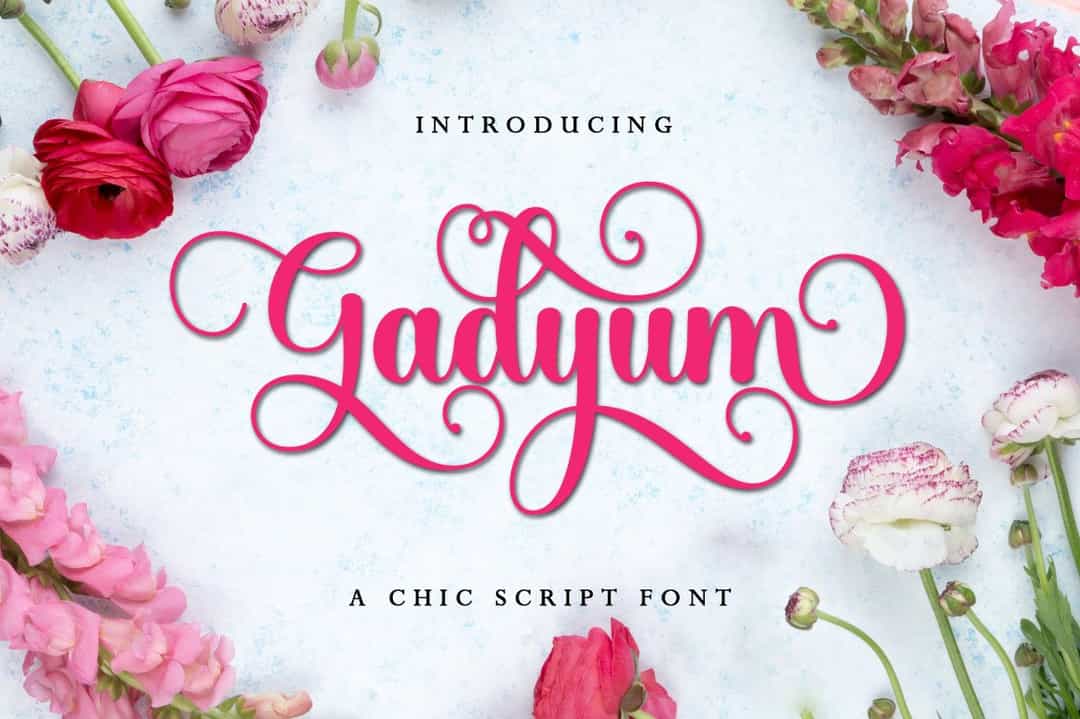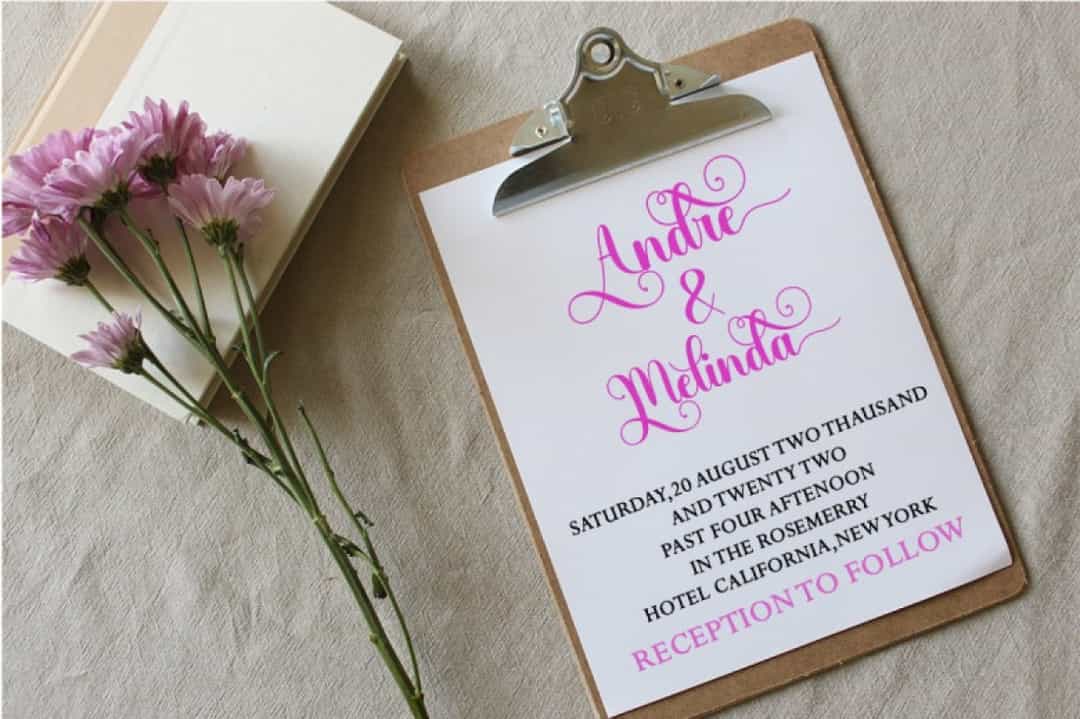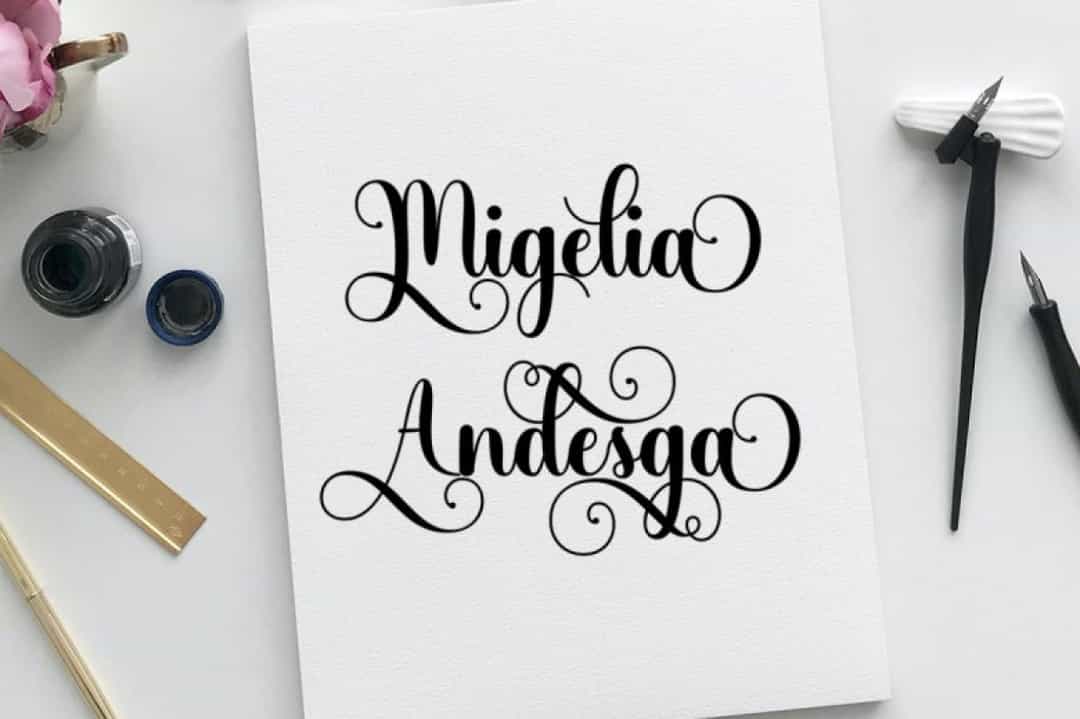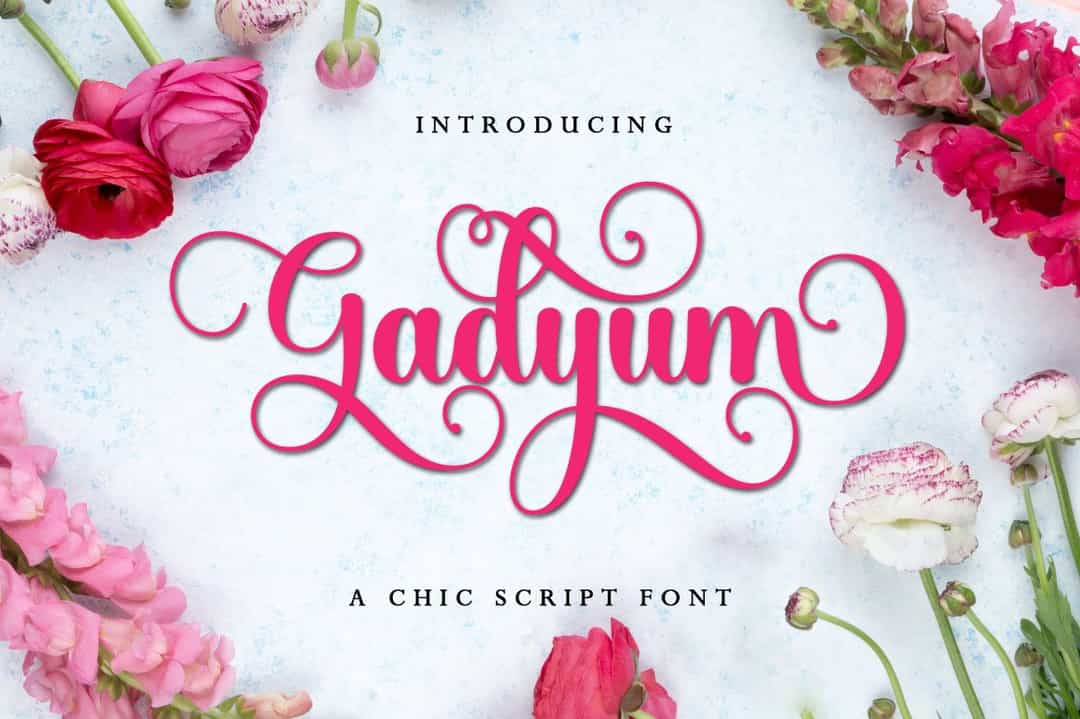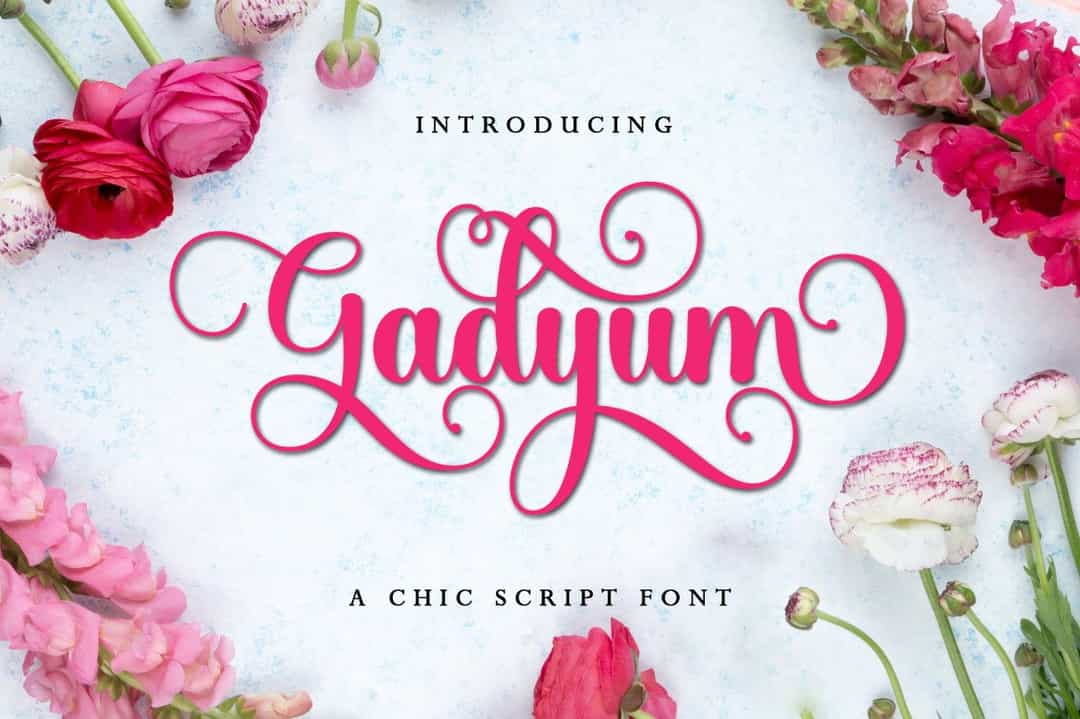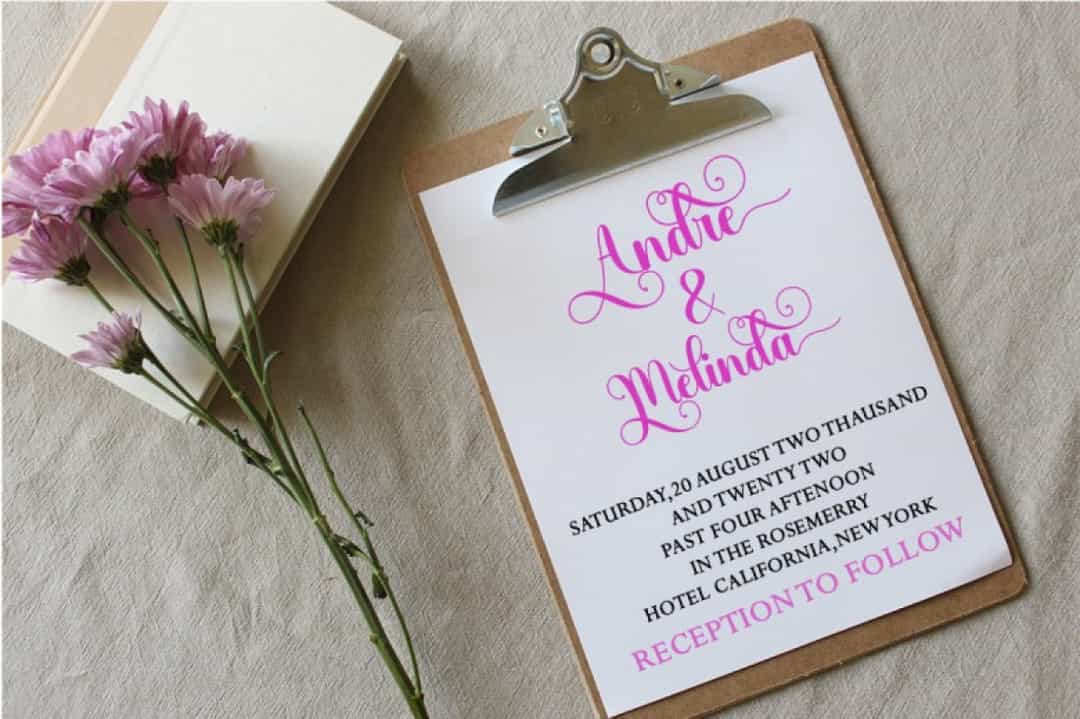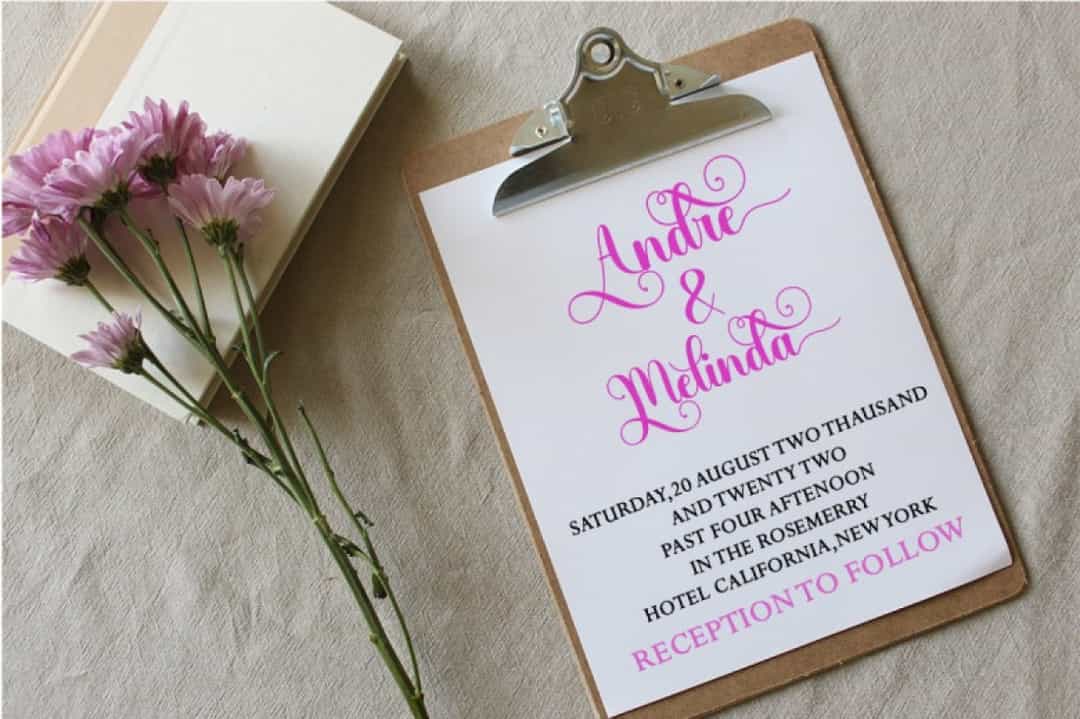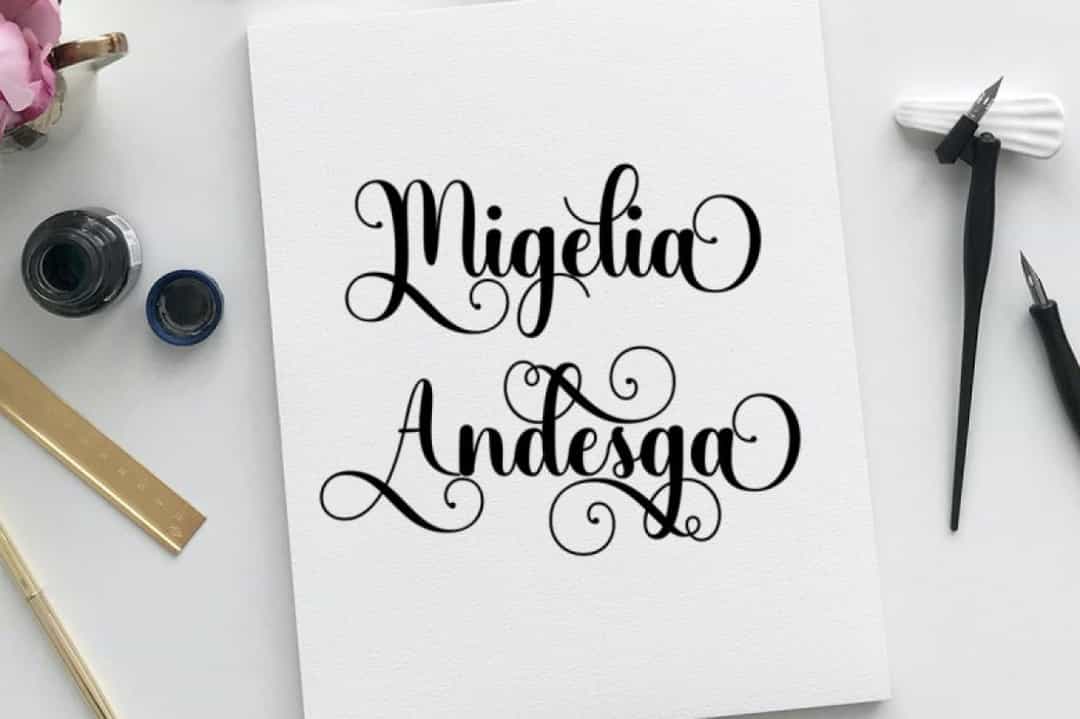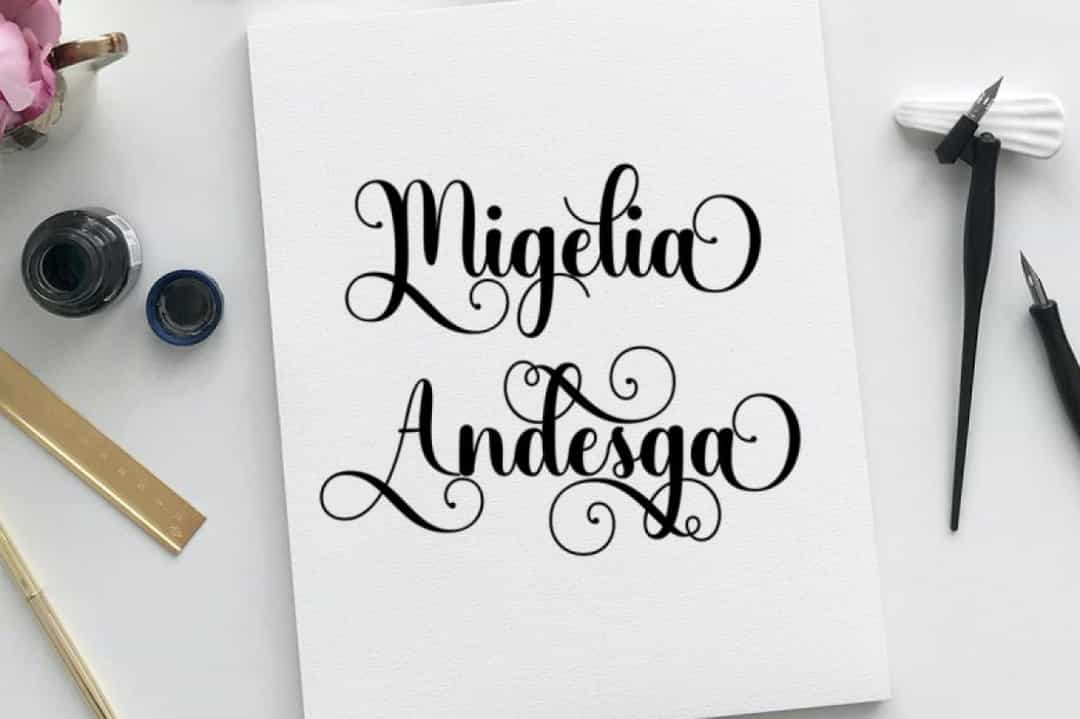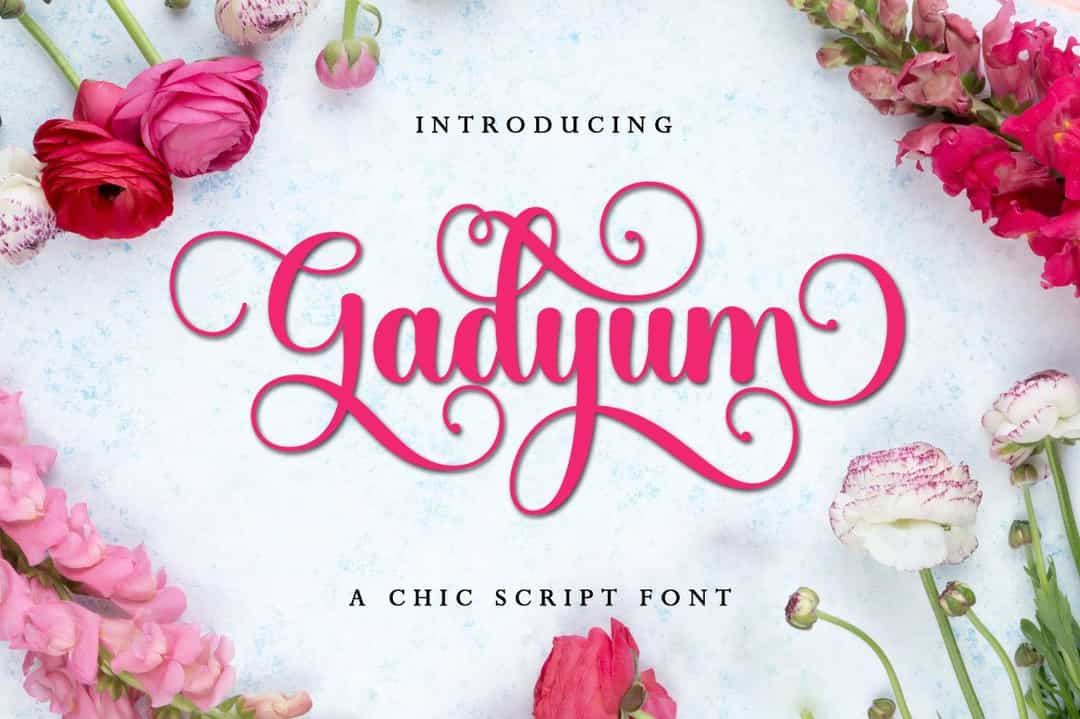
Gadyum, It is a calligraphy font developed as fully as possible to meet every design need, and we believe it will become widely utilized and adopted. For example, its uses could range from logos, product packaging wedding invitations branding logos headlines signs labels signature books book covers posters quotes etc…